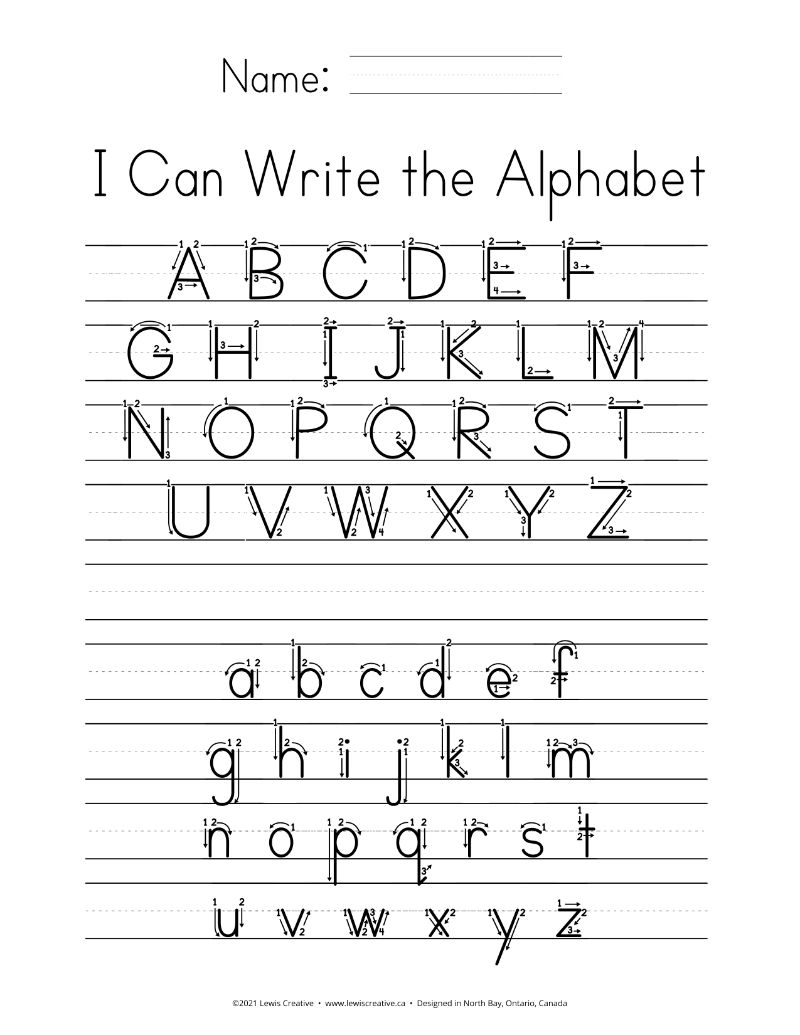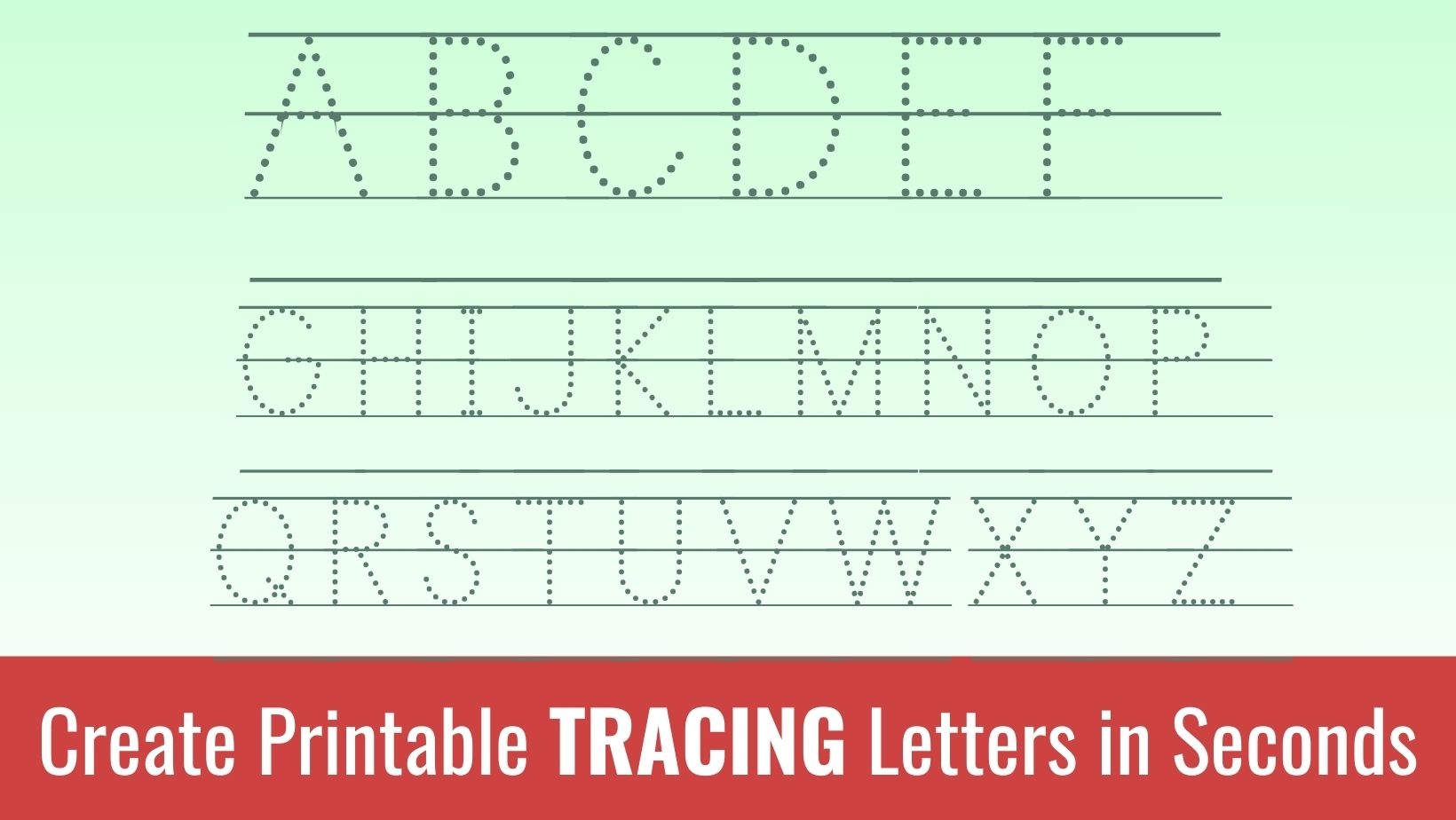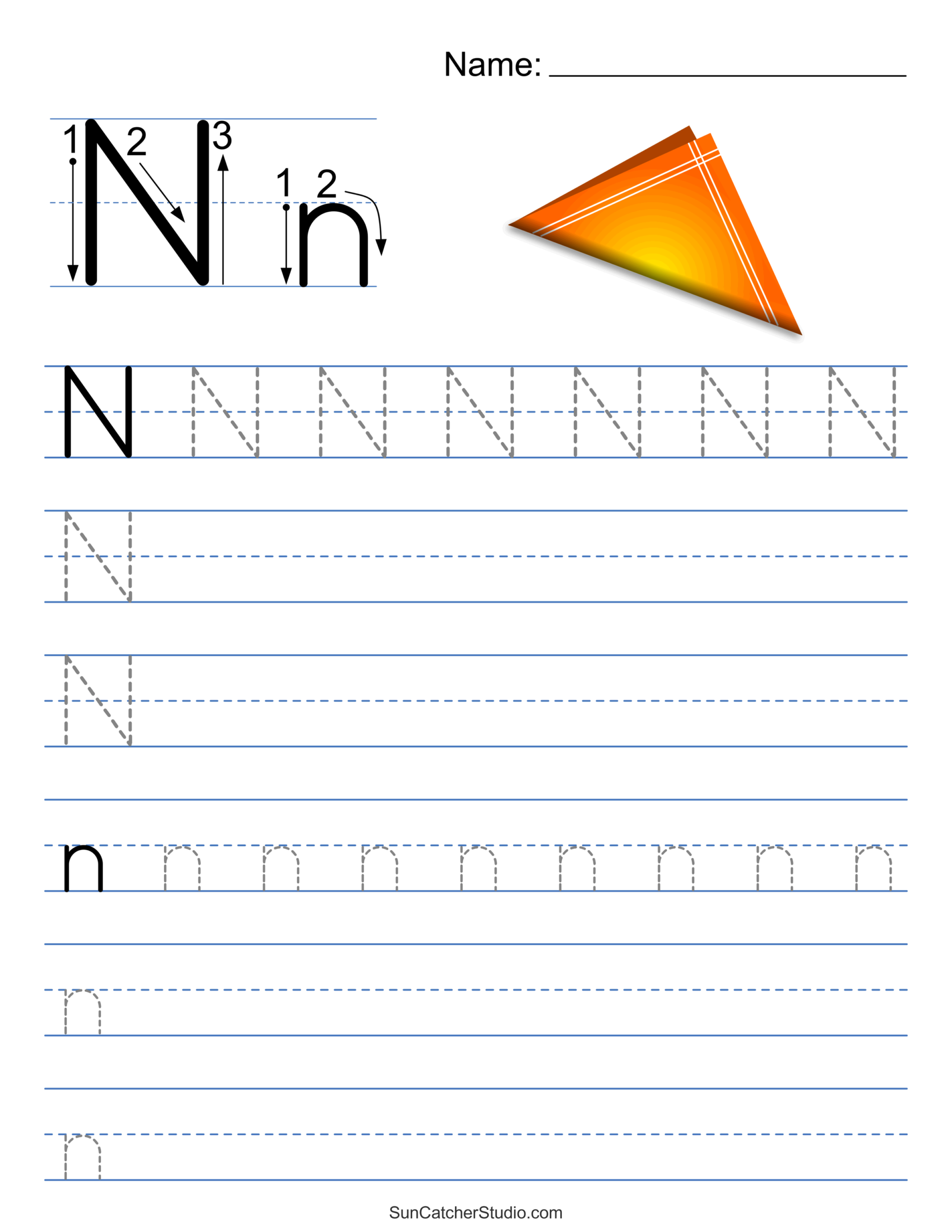
Free Tracing Letter With Lines Font
Handwriting is an essential skill that every child needs to master. However, for some kids, holding a pencil and forming letters can be a daunting task. That’s where a tracing letter with lines font comes in – a helpful tool designed to guide children’s handwriting practice. By providing a clear outline of letters with lines to trace, these fonts make it easier for kids to learn and practice writing.
The use of tracing letter with lines fonts has become increasingly popular among parents and educators. These fonts are not only helpful for children who are just starting to learn how to write, but also for those who need extra practice to improve their handwriting skills. With the numerous benefits they offer, it’s no wonder why many are searching for free tracing letter with lines fonts to download and print.
What is a Tracing Letter with Lines Font?
A tracing letter with lines font is a type of font that features letters with guidelines or lines to help children practice writing. These fonts are specifically designed to make handwriting practice more engaging and effective. They usually include dotted lines or solid lines that guide the child’s pencil as they practice writing, helping them to develop the correct letter formation and spacing.
Benefits of Using a Tracing Letter with Lines Font
Using a tracing letter with lines font offers several benefits for children. For one, it helps improve their handwriting skills by providing a clear guide on how to form letters correctly. It also enhances their fine motor skills, hand-eye coordination, and overall dexterity. Additionally, tracing letter with lines fonts can boost a child’s confidence in their writing abilities, making them more eager to practice and learn.
How to Choose the Right Free Tracing Letter with Lines Font
When choosing a free tracing letter with lines font, there are several factors to consider. First, look for fonts that are specifically designed for children, with clear and easy-to-follow guidelines. You should also consider the style of the font, opting for one that is visually appealing and engaging for your child. Furthermore, ensure that the font is compatible with your computer or device, and that it can be easily printed or used digitally.
In conclusion, a free tracing letter with lines font is a valuable resource for parents and educators looking to help children improve their handwriting skills. By providing a fun and interactive way to practice writing, these fonts can make a significant difference in a child’s learning journey. So why not download and print a free tracing letter with lines font today, and watch your child’s handwriting skills flourish?